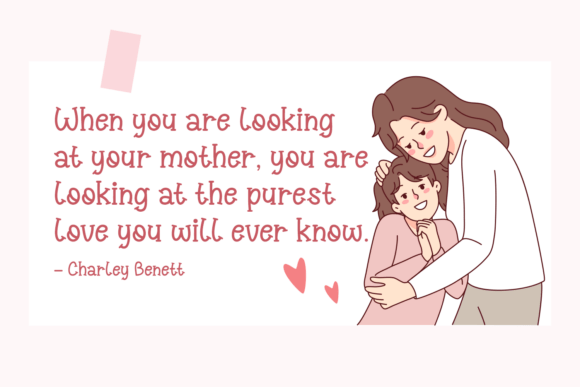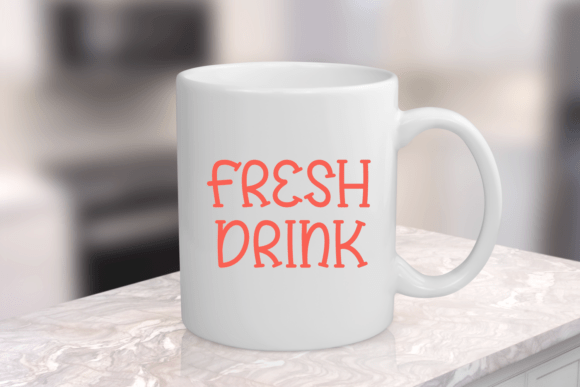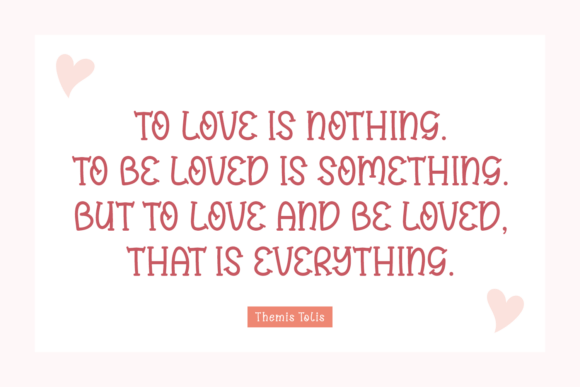
Introduction to Magical Lemonade Font
Magical Lemonade is a charming and minimalist slab serif font typeface that exudes cuteness and simplicity.
With its clean lines and easy-to-read design, this font is the perfect choice for a wide range of creative projects Whether youโre creating inspirational quotes, captivating headings, engaging blogs, striking logos, or inviting invitations.
Key Features of Magical Lemonade Font
Why Choose Magical Lemonade Font?
Magical Lemonade Font offers exceptional quality and versatility, making it a valuable addition to your design toolkit. Whether you’re creating for personal projects or commercial use, Magical Lemonade Font delivers professional results.